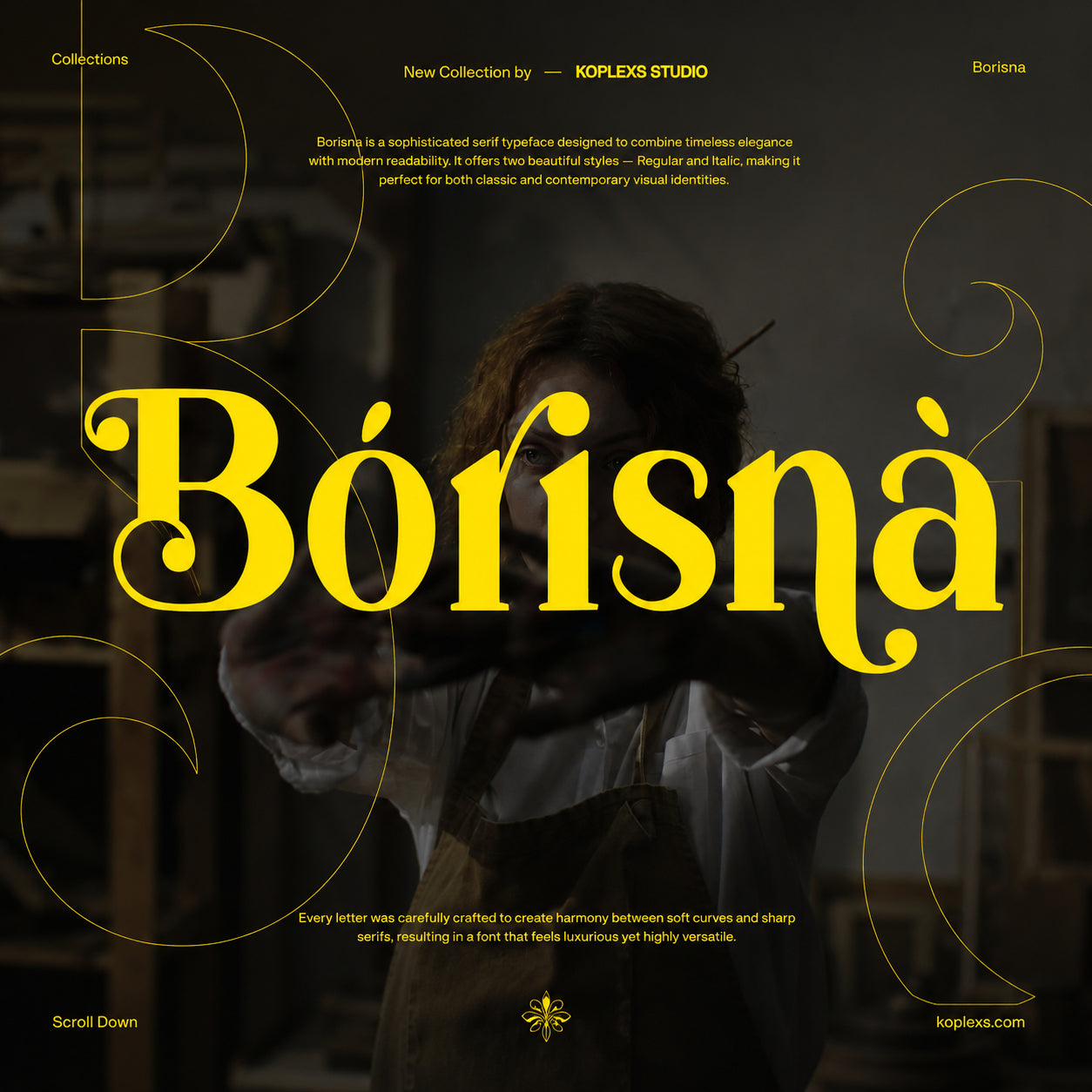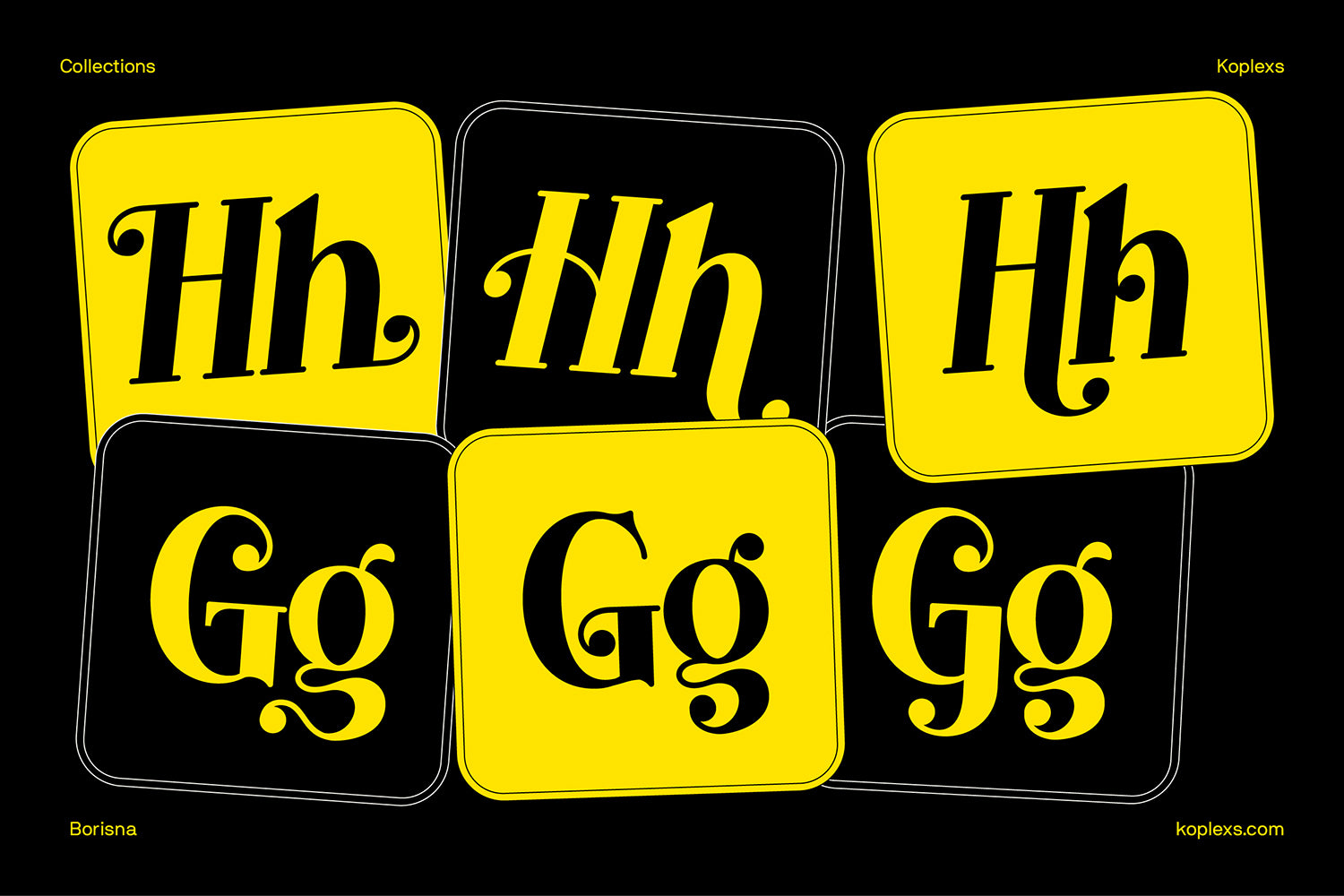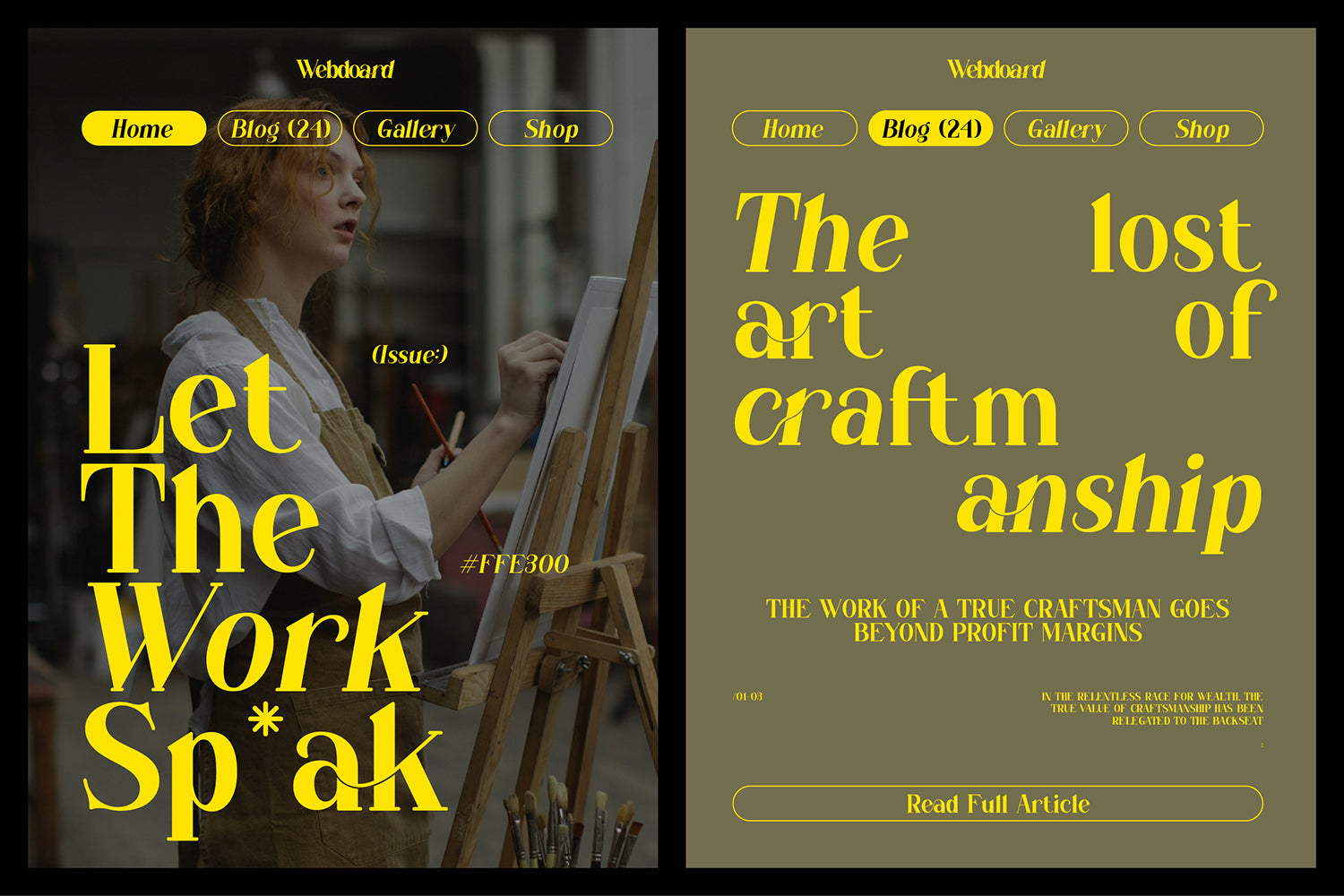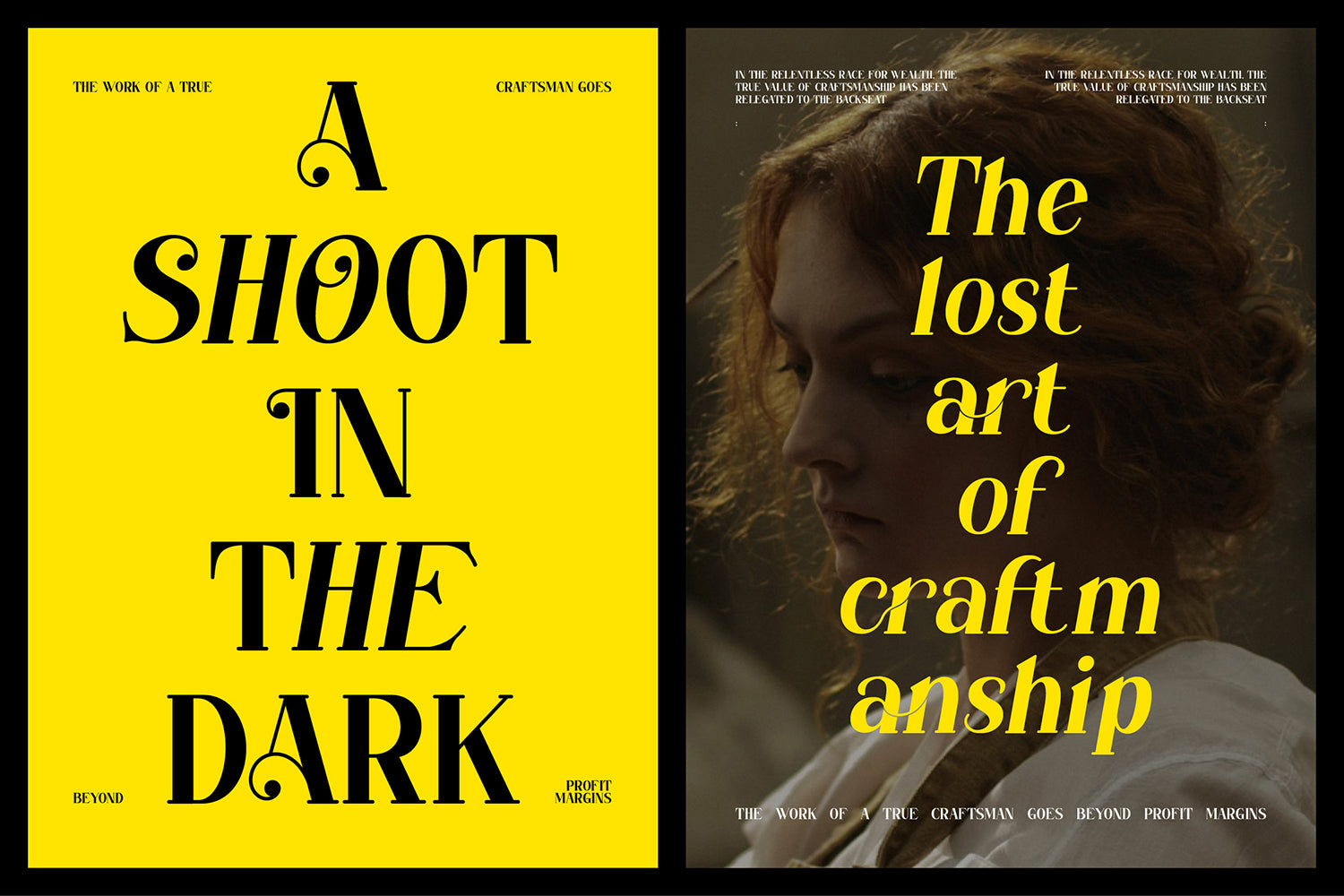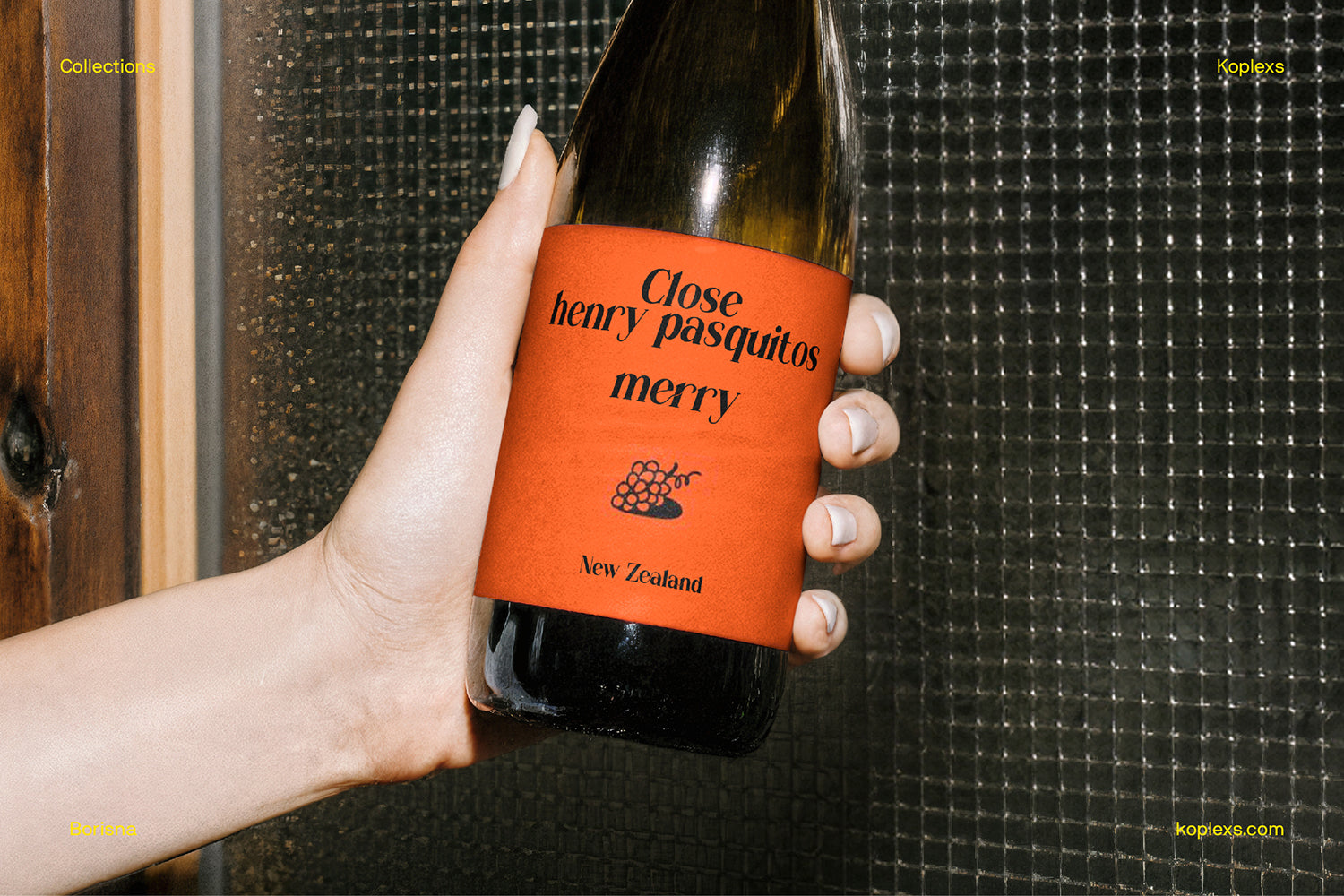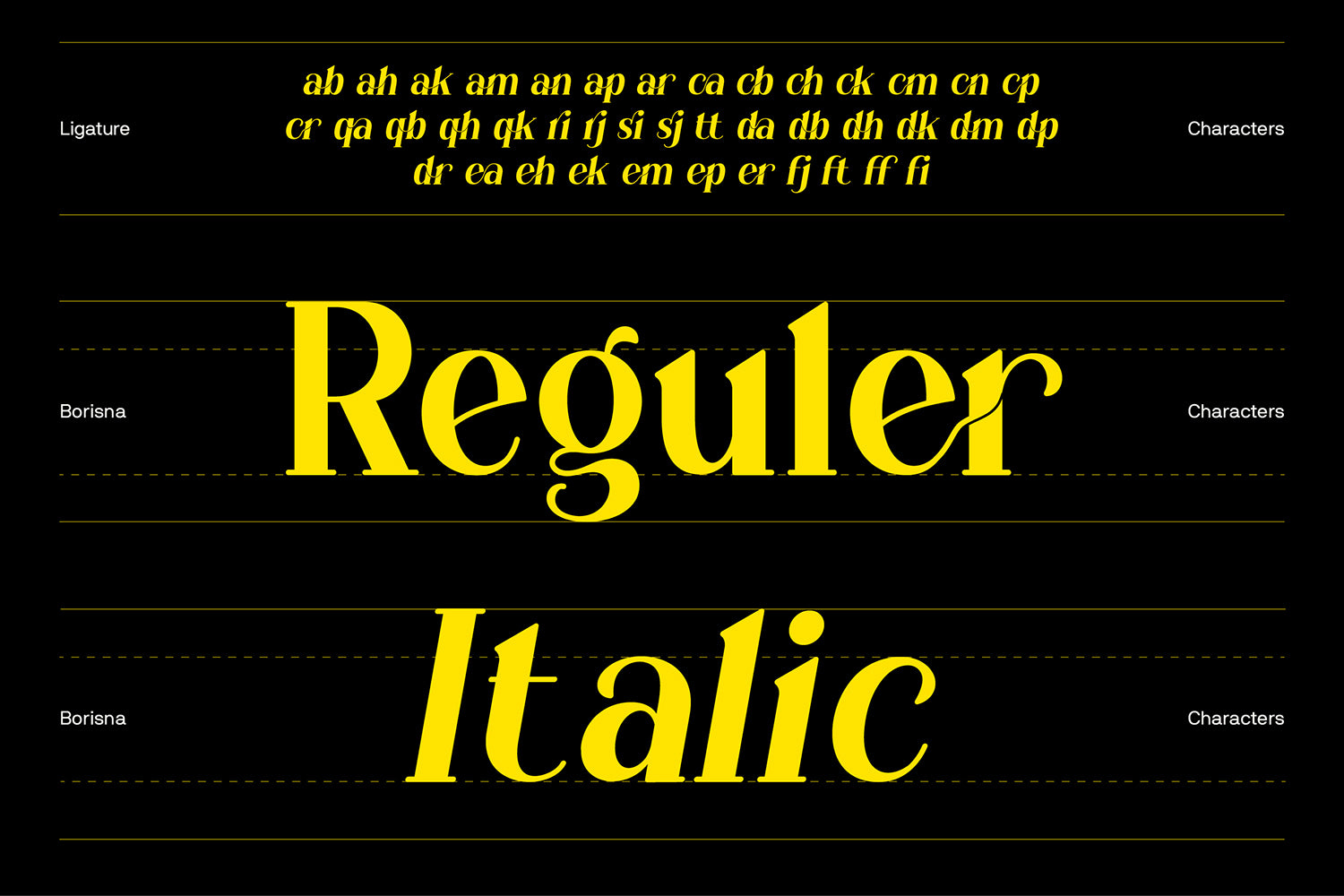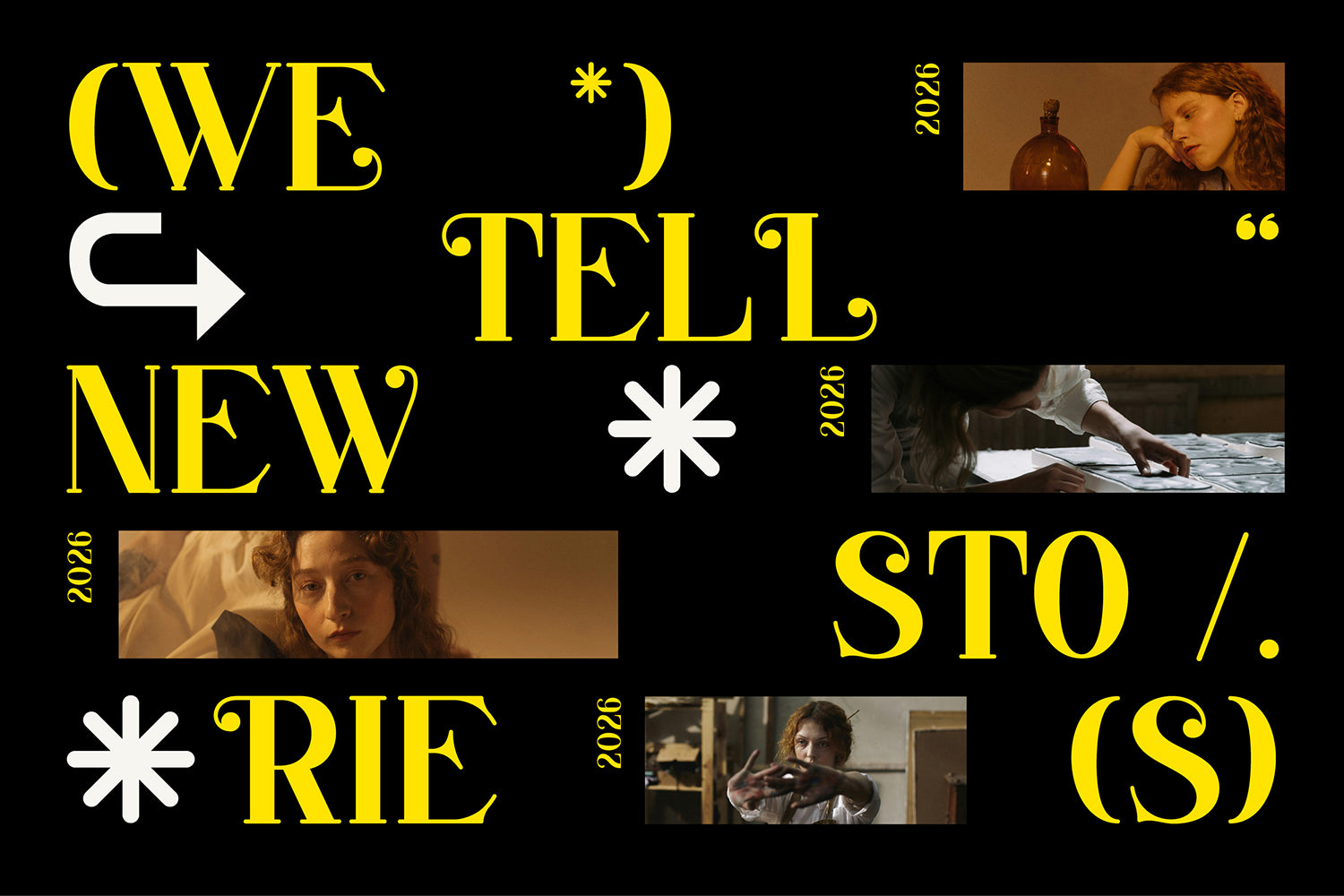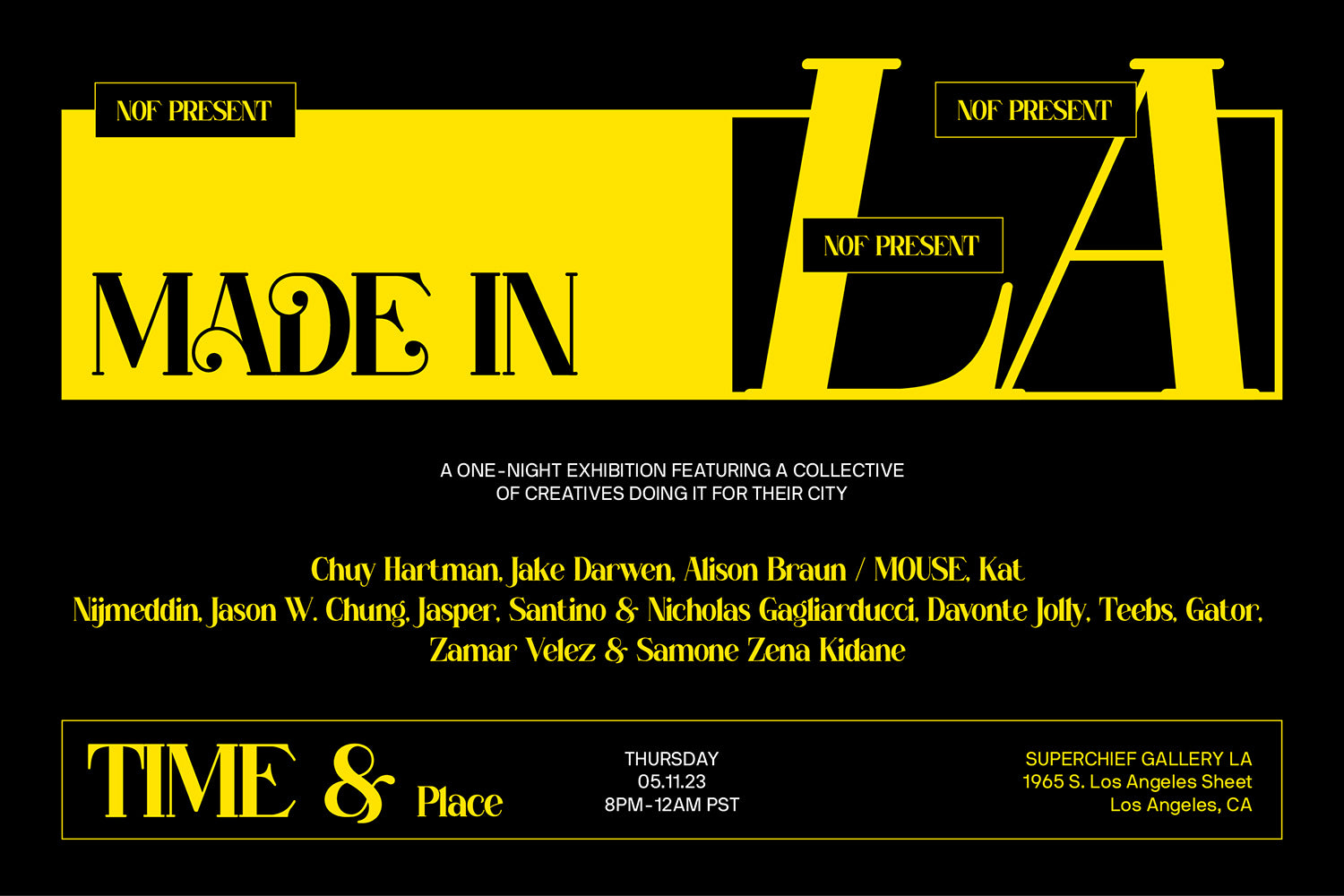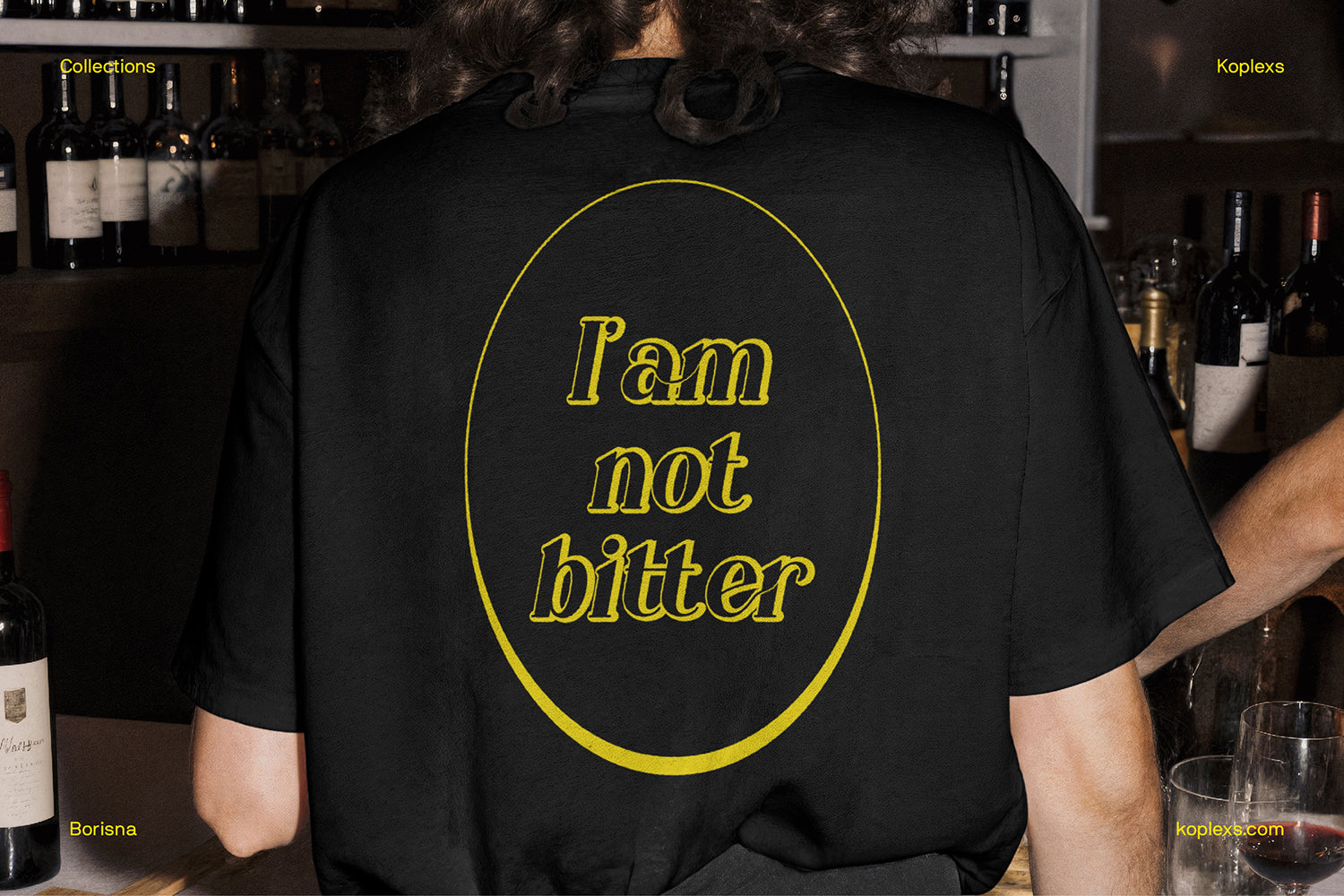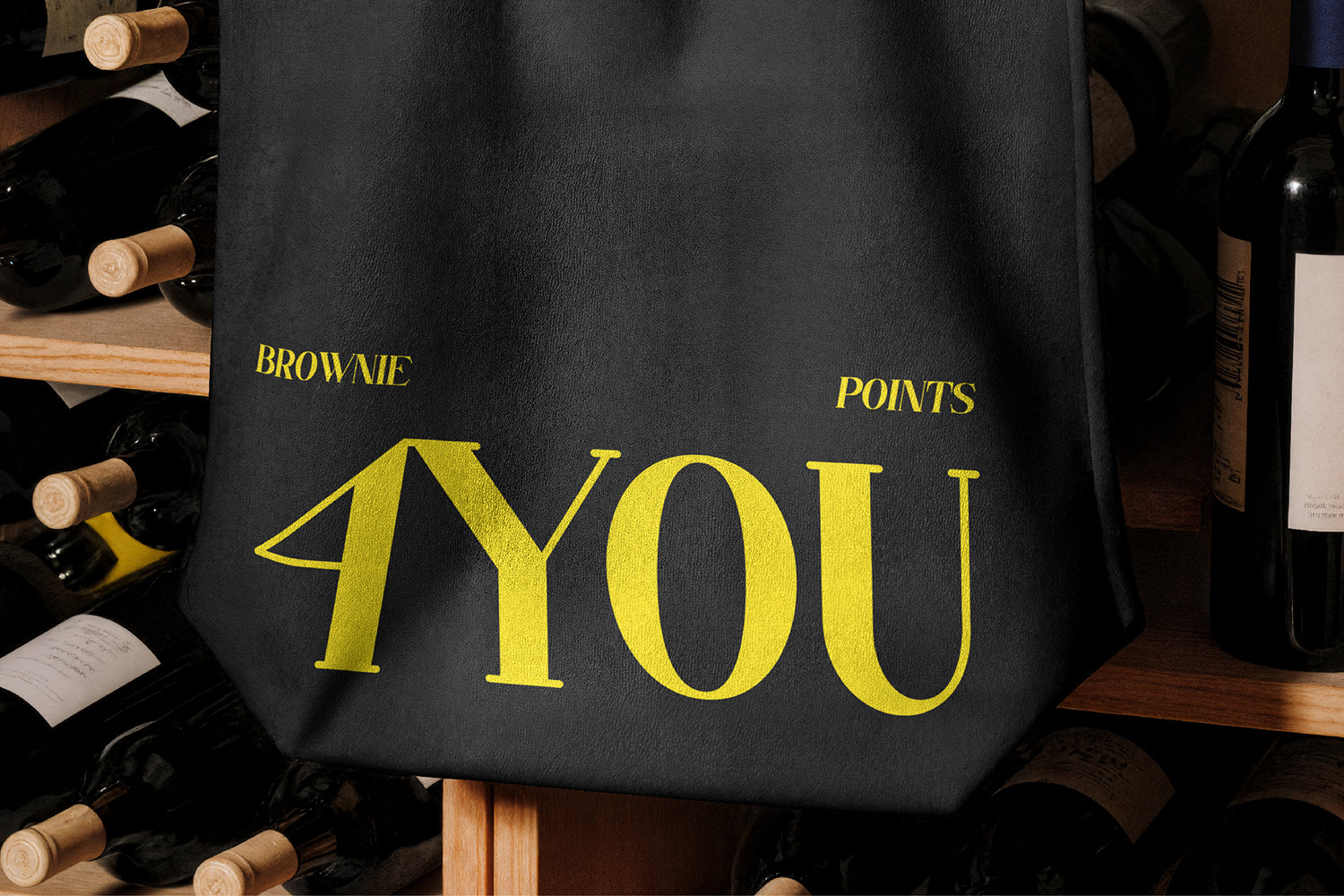
Borisna Font | Elegant Serif Typeface
Borisna is an expressive serif built for designs that deserve to be noticed. Combining high-contrast strokes, sharp serifs, soft curves, and unexpected decorative details, it brings a confident editorial character with just the right amount of drama.
Its letterforms feel elegant without being too formal. Oversized headlines show off Borisna’s distinctive shapes, while its refined proportions make it equally at home in sophisticated branding and experimental layouts. The Regular style delivers a strong, polished presence, while the Italic adds movement and a more expressive personality.
Think fashion editorials, wine labels, art direction, bold packaging, magazine covers, posters, menus, merch, social campaigns, and statement-making brand identities.
Borisna works especially well when typography becomes the hero of the design. Pair it with photography for an editorial look, keep it oversized on a minimal layout, or use its expressive characters to build a memorable wordmark.
Perfect for:
Editorial design
Fashion and beauty branding
Logos and wordmarks
Packaging and labels
Magazines and publications
Posters and advertising
Website headlines
Restaurant and wine branding
Merchandise
Social media campaigns
Refined, dramatic, and full of character, Borisna gives classic serif elegance a fresh contemporary voice.
Make it big. Let the type do the talking.
Borisna Font is an elegant editorial serif typeface featuring high-contrast strokes, sharp serifs, and soft curves, designed for impactful designs. It includes TTF/OTF files and offers both Regular and Italic styles, making it suitable for a variety of branding and design applications.